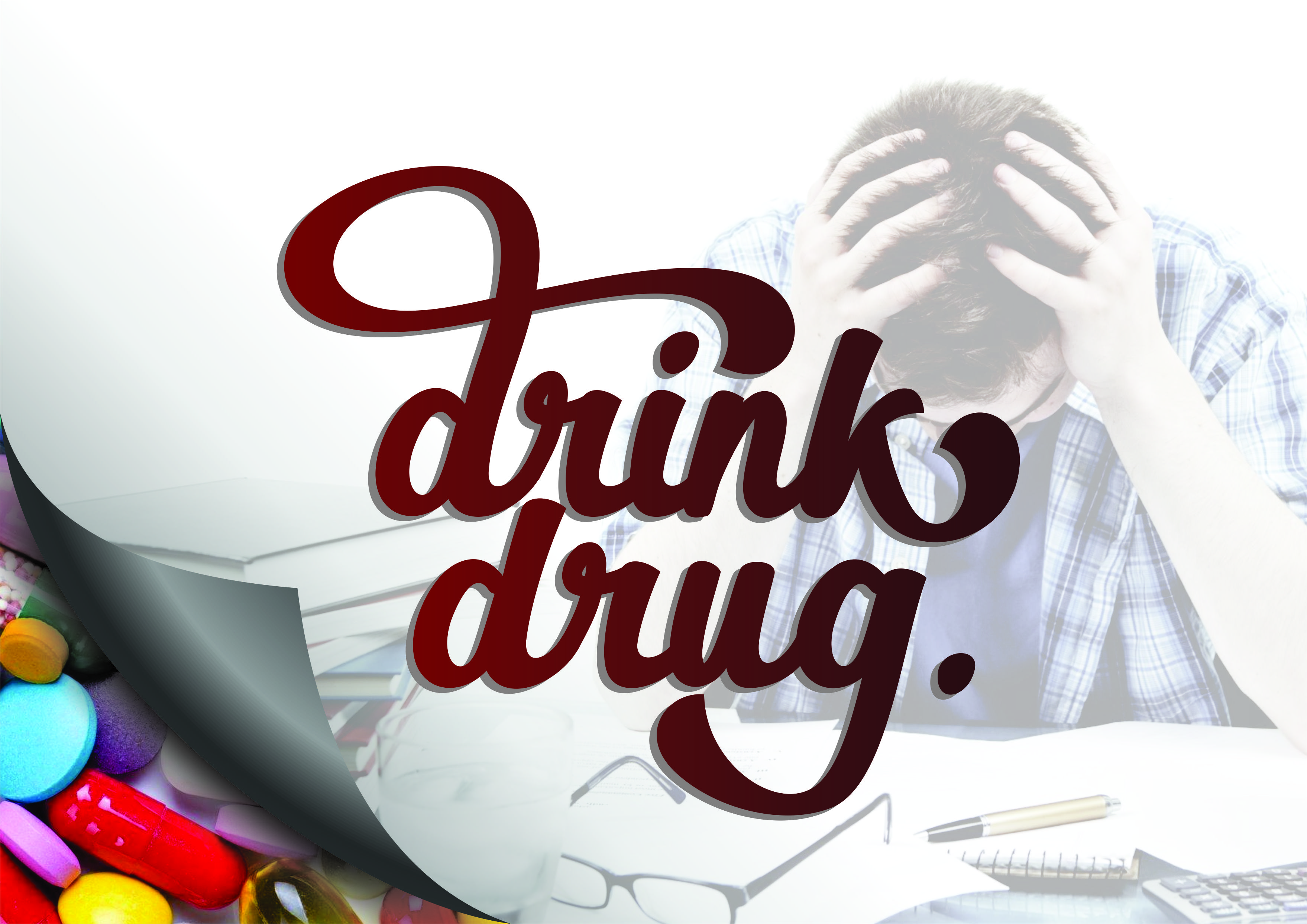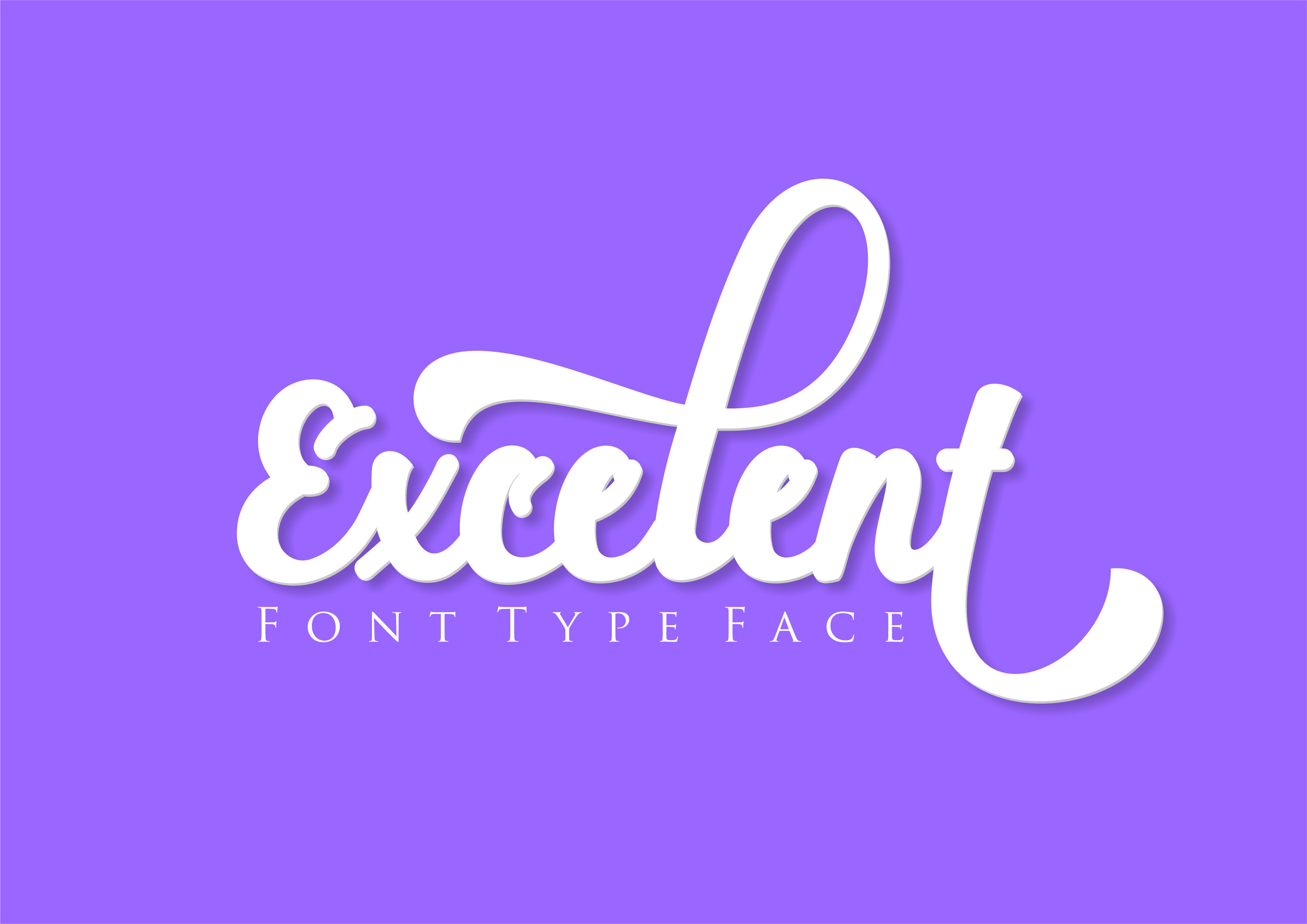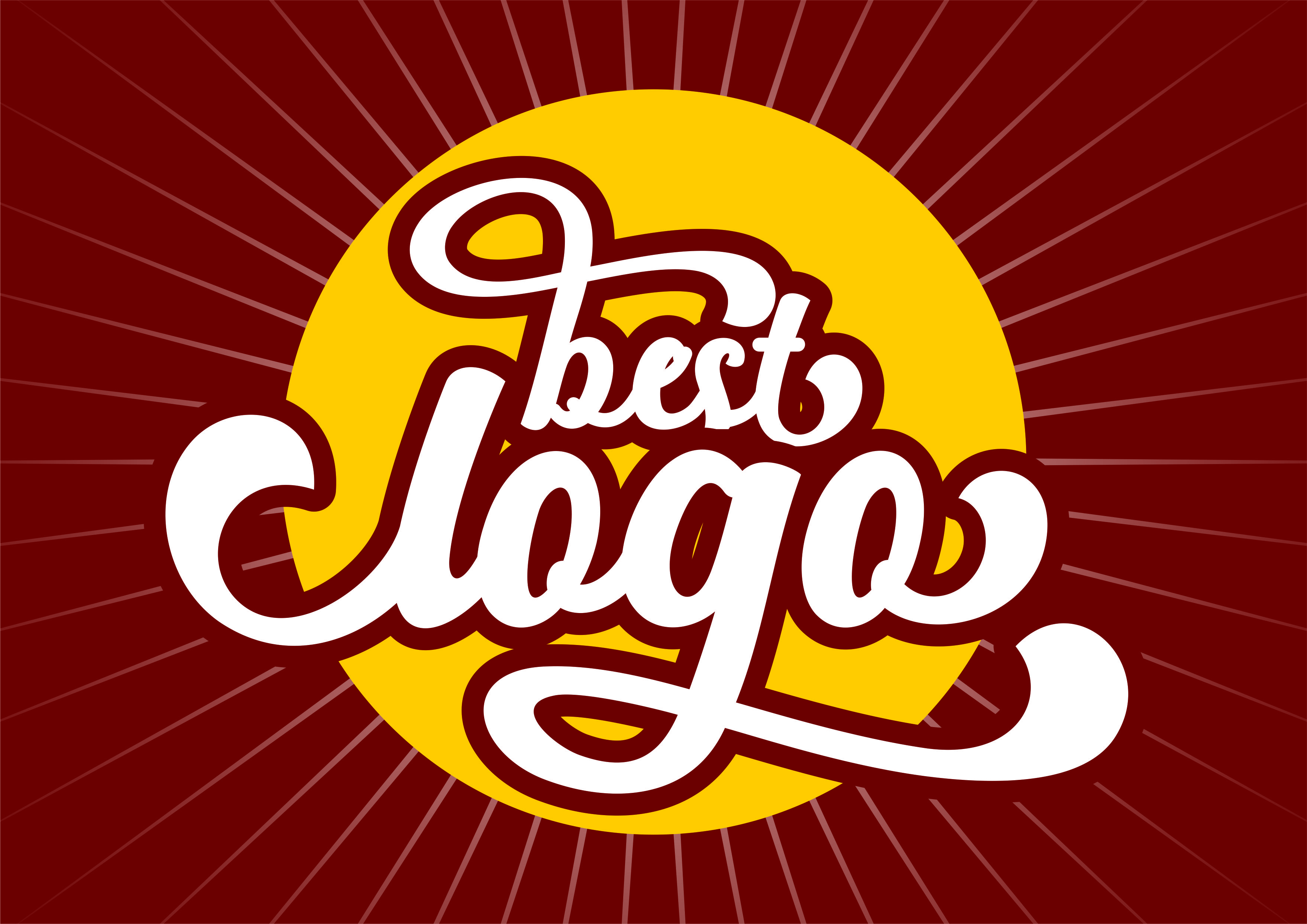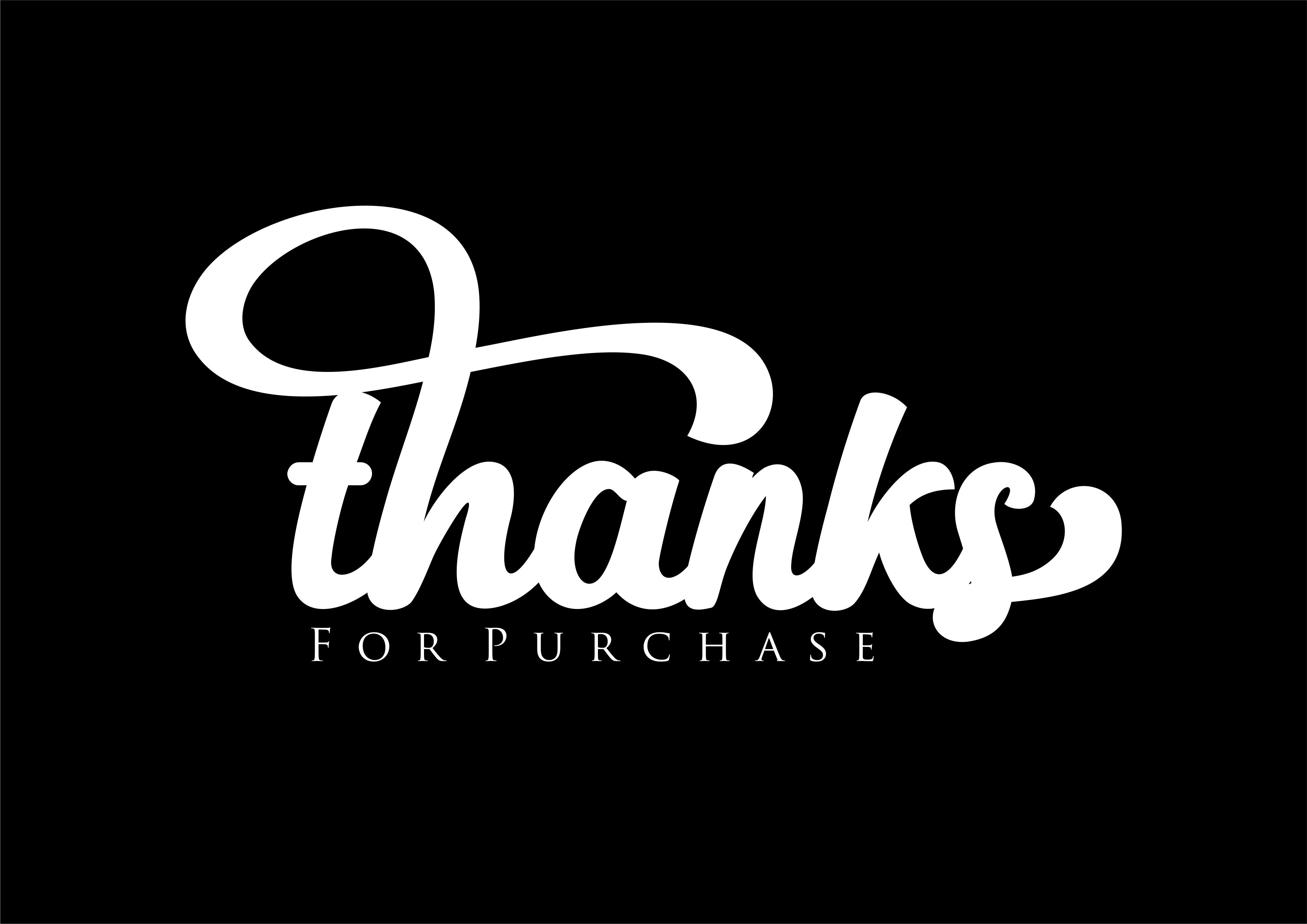
Introducing Alakita Font: Elevate Your Typography with a Jaw-Dropping Script Font
Are you tired of using the same old fonts in your design projects? Look no further! Alakita Font is here to revolutionize your typography with its stunning script style and unparalleled customization options. This gorgeous font is perfect for designers and crafters who want to add a touch of elegance and sophistication to their work.
What Makes Alakita Font So Special?
Alakita Font is a jaw-dropping script font that boasts a range of features that set it apart from other fonts on the market. Here are just a few reasons why you need to get your hands on this incredible font:
- Multiple Glyph Options: Alakita Font comes with several glyph options per character, giving you the ability to customize your typography across a wide range of projects. Whether you’re working on a logo, brochure, or website, this font has got you covered.
- Gorgeous Script Style: The script style of Alakita Font is simply stunning. With its flowing curves and elegant lines, this font is perfect for adding a touch of sophistication to your designs.
- Highly Versatile: Alakita Font is incredibly versatile, making it suitable for a wide range of projects, from branding and advertising to packaging and web design.
How to Use Alakita Font in Your Design Projects
Using Alakita Font in your design projects is incredibly easy. Here are a few tips to get you started:
- Pair it with Other Fonts: Alakita Font pairs perfectly with other fonts, making it easy to create stunning typography combinations. Try pairing it with a clean sans-serif font for a bold and modern look.
- Experiment with Glyph Options: With multiple glyph options per character, you can experiment with different variations to create a unique look that reflects your brand’s personality.
- Use it for Headings and Titles: Alakita Font is perfect for headings and titles, where its elegant script style can really shine. Use it to add a touch of sophistication to your designs and make them stand out.
Why Designers and Crafters Love Alakita Font
Designers and crafters love Alakita Font for a range of reasons. Here are just a few:
- Easy to Read: Despite its elegant script style, Alakita Font is incredibly easy to read, making it perfect for body text and longer blocks of copy.
- Customizable: With multiple glyph options per character, Alakita Font is highly customizable, allowing you to tailor your typography to your specific needs.
- Unique and Creative: Alakita Font is a unique and creative font that can help you stand out in a crowded design landscape. Use it to add a touch of personality to your designs and make them more engaging.
In conclusion, Alakita Font is a jaw-dropping script font that is perfect for designers and crafters who want to elevate their typography and add a touch of elegance to their designs. With its multiple glyph options per character, gorgeous script style, and high versatility, this font is sure to become a staple in your design toolkit. So why wait? Get your hands on Alakita Font today and start creating stunning typography that will leave a lasting impression!
Whether you’re working on a branding project, creating a website, or designing a brochure, Alakita Font has got you covered. Its ease of use, customizability, and unique style make it the perfect choice for any design project. So go ahead, experiment with Alakita Font, and see the difference it can make in your designs!